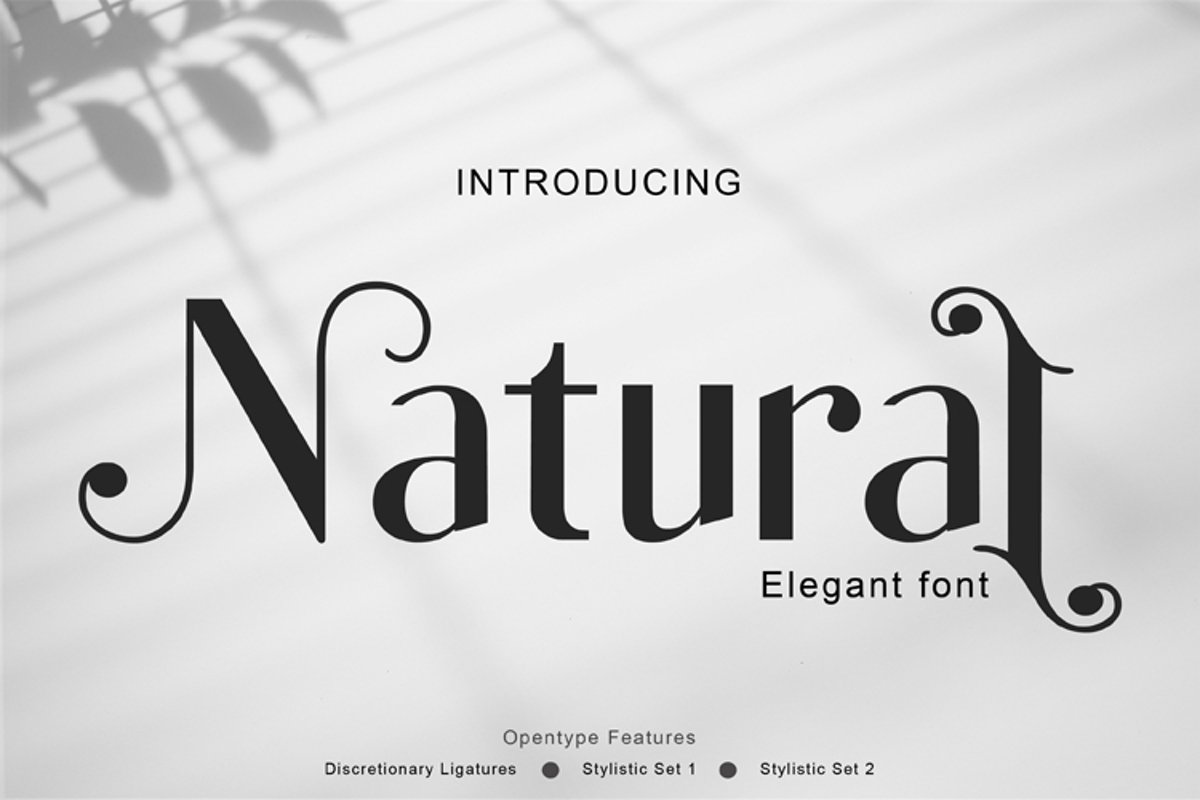
Natural
Natural is a serif font that combines moderate classic style fonts with a touch of minimalist design, produces beautiful and elegant fonts, and is supported by ligature and other additional characters will make you explore your design style more easily, with various alternative styles that allow for logos , posters, covers, main packaging, t-shirts, business cards, wedding cards and more,So what are you waiting for? What's included?Uppercase Characters Lowercase Foreign Language Support: ÀÁÂÃÄÅÆÇÈÉÊËÌÍÎÏÐÑÒÓÔÕÖØÙÚÛÜÝßàáâãäåæçèéêëìíïñòóôõöøùúûüýÿFEATURES Natural (OTF, TTF, eto.woff, wff2) Feel free to comment, or send PM or email me. thanks.